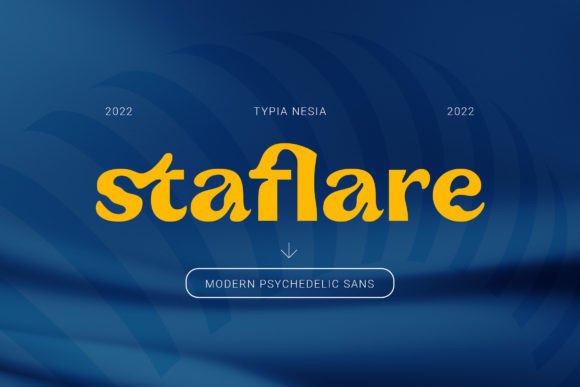
Venture into a captivating realm of visual rhythm with Staflare, the enchanting font that stands as a testament to the boundless creativity of the human spirit, a font that will push the boundaries of your design imagination.
Staflare, a brainchild of Typia Nesia, is a display font that commands attention with its bold, retro-inspired demeanor. This font is not just a collection of letters; it's an expression of art, a symphony of visual elements that dance across the screen, leaving an indelible mark on the beholder's mind.
Immerse yourself in the nostalgic charm of the 1960s and 1970s with Staflare, a font that evokes the spirit of liberation and fearless self-expression. Its retro psychedelic aura will transport you back to an era of bold colors, groovy tunes, and boundless optimism.
With Staflare, you can effortlessly elevate your designs to new heights, capturing the attention of your audience and leaving a lasting impression. Whether you're crafting logos, branding materials, or creating stunning visuals for your website or social media, Staflare will add a touch of intrigue and individuality to your work.
Unleash your creativity and embrace the limitless possibilities of Staflare. Let your imagination run wild as you explore the vast array of design projects that await you with this remarkable font. From vintage retro designs to modern advertising campaigns, from psychedelic posters to captivating movie titles, Staflare is your ultimate creative companion.
Join the ranks of countless designers, artists, and creatives who have succumbed to the allure of Staflare. Experience the joy of creating designs that resonate with your audience, designs that tell a story and leave a lasting impact.
With Staflare, you'll discover a font that's more than just a collection of letters; it's a gateway to a world of boundless creativity, a tool that will empower you to transform your ideas into visual masterpieces.